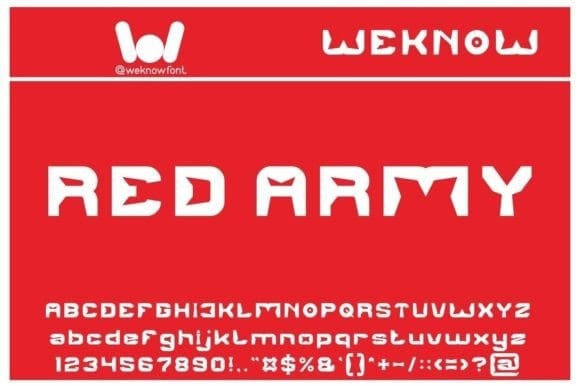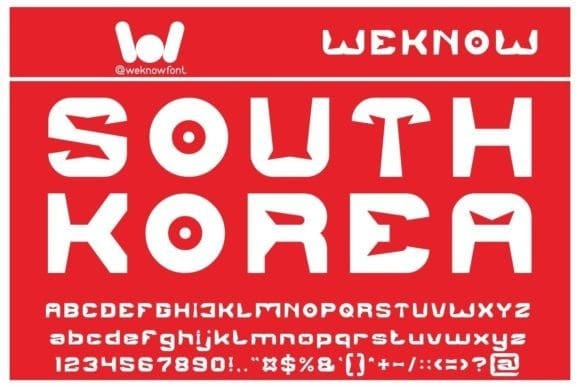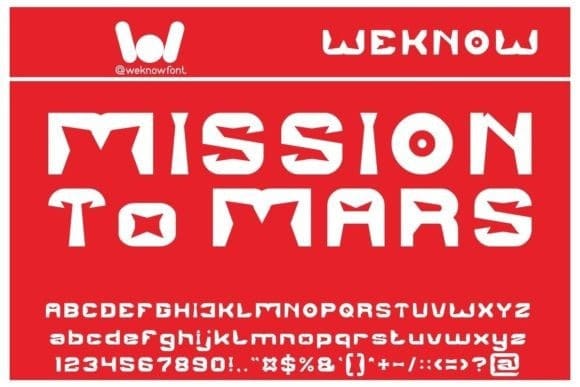
Mission To Mars Font
Mission To Mars Font is a trendy and cool display font with a strong techno-vibe. Its versatility will make it suitable for a wide pool of projects that need a modern touch.